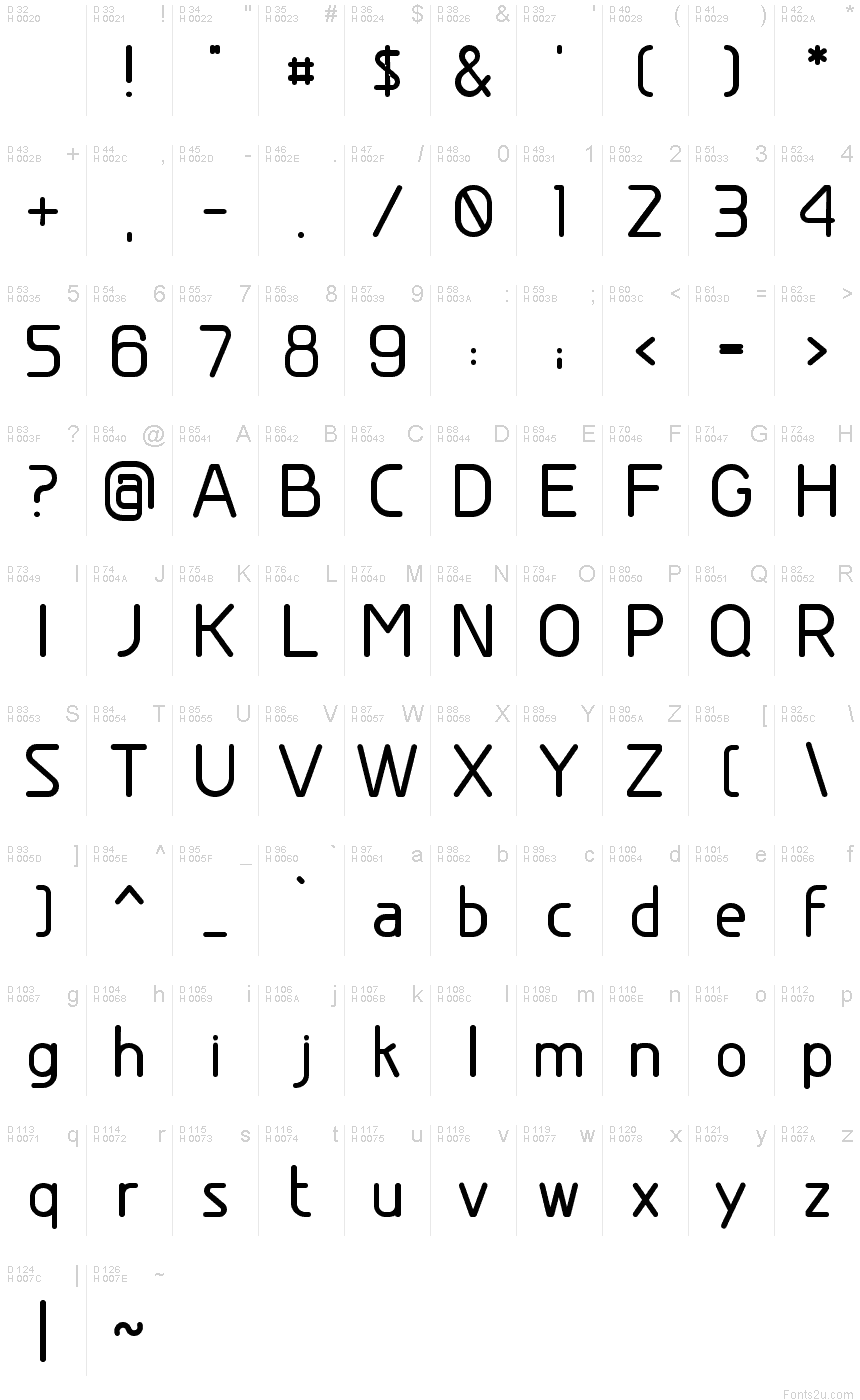
GreyscaleBasic Bold
GreyscaleBasic Bold by Greyscale of GreyscaleNet is a free rounded geometric sans serif with a clean, approachable profile. Its letters use broad curves and mostly even strokes, with clipped angles adding a sharper note to the otherwise soft construction. The forms are open and plainly drawn.
A contemporary cafe brand is a convincing starting point, particularly for logos, menus, and takeaway packaging that favor simple lettering over nostalgic ornament. It also suits event posters and digital graphics, where the smooth shapes can support cheerful photography or flat illustration. Across these uses, the combination of friendly curves and crisp cuts offers an informal look that still feels orderly.